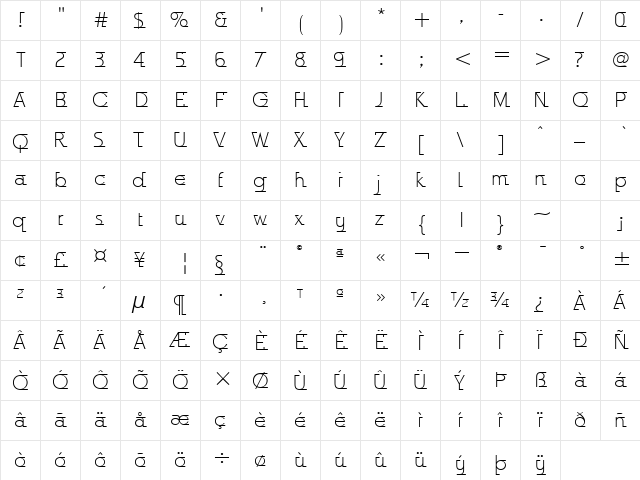
Odyssee ITC TT Light
Design Context for Odyssee ITC TT Typeface
Odyssee ITC TT is a composed and adaptable typeface that performs quietly and consistently across a wide range of design contexts. The delicate stroke weight brings airiness and refinement to layouts.